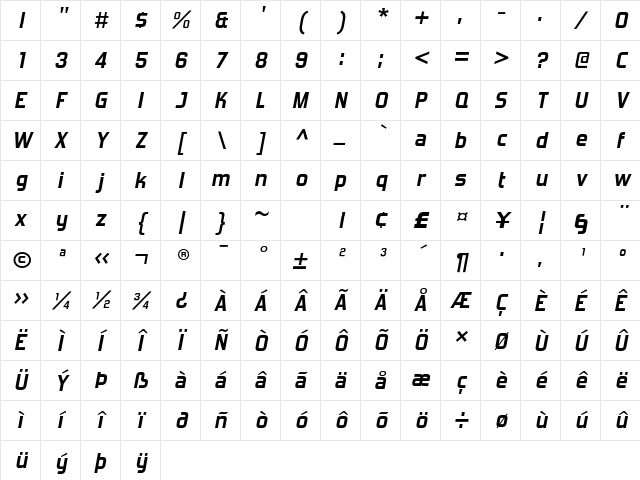
Complete Forgotten Futurist Bold Italic glyph index. Displaying only characters natively supported by Forgotten Futurist Bold Italic font.
Forgotten Futurist has a distinctly futuristic character, with geometric precision and clean angles that feel at home in technology, gaming, and sci-fi contexts. The slanted form adds forward momentum and visual energy. Its bold stroke weight gives it real presence on the page.
Pro Tip: Try Forgotten Futurist with generous letter-spacing in UI labels and navigation - the geometric forms benefit from room to breathe.